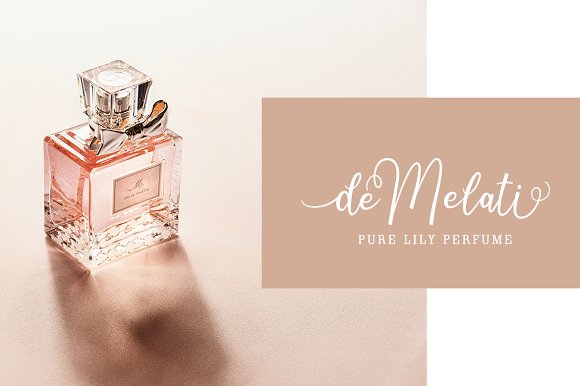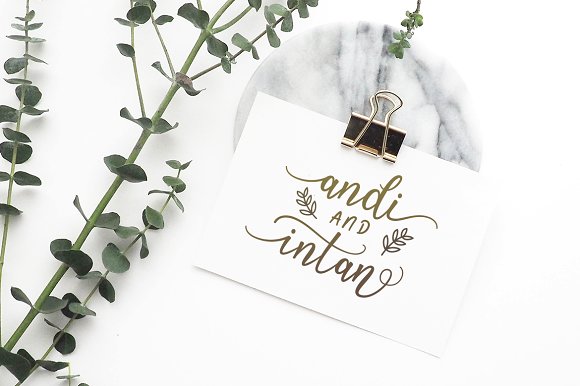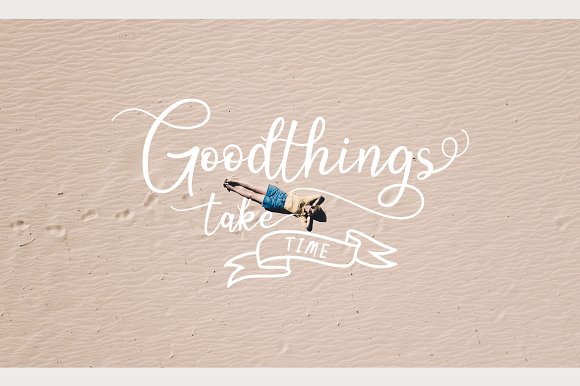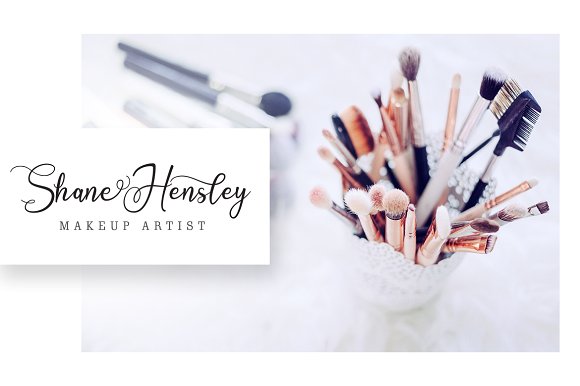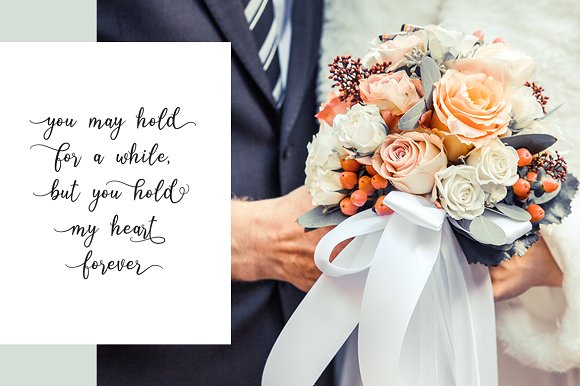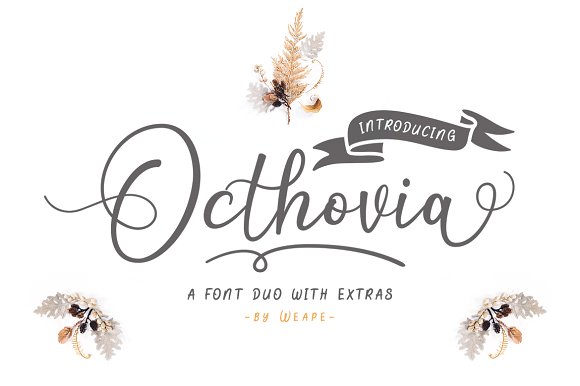
Octhovia Font Duo and Extras
Introducing Octhovia Font Duo and Extras.
A pair font with a touch of modern calligraphy and illustrations are useful to beautify every sentence written.
Octhovia is built with opentype features with additional swash at the beginning and end, alternative letters, and ligatures so it makes it look natural as written by hand.